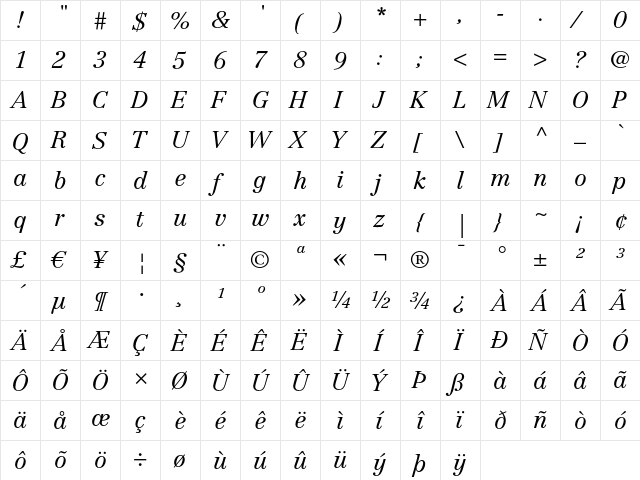
Linotype Centennial LT 46 Light Italic
Design Context for Linotype Centennial LT Typeface
Linotype Centennial LT is a composed and adaptable typeface that performs quietly and consistently across a wide range of design contexts. The slanted form adds forward momentum and visual energy. The delicate stroke weight brings airiness and refinement to layouts.
Pro Tip: Try Linotype Centennial LT for annotation and caption copy alongside an upright companion — the contrast in angle creates a dynamic but ordered typographic system.